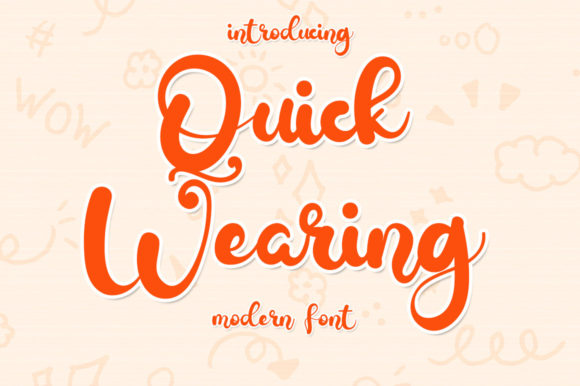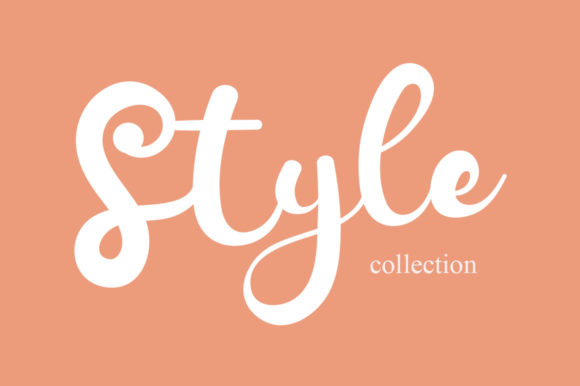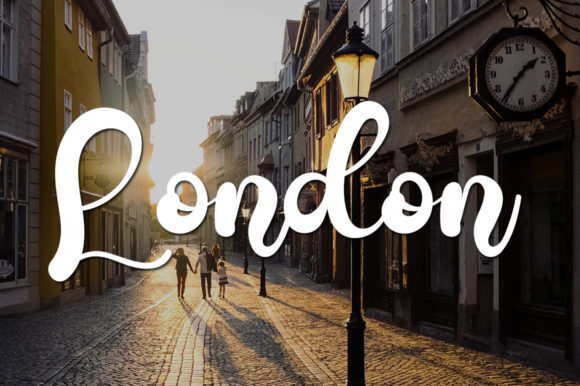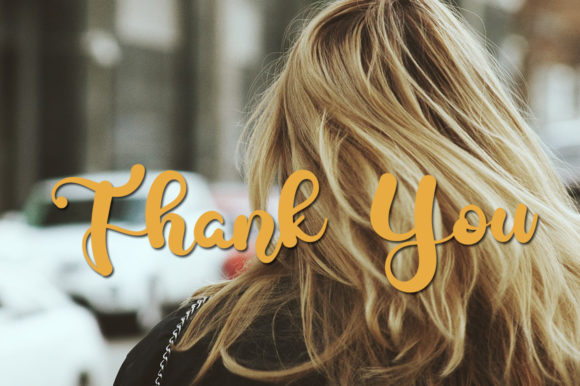
Quick Wearing Font
About Quick Wearing Font
Quick Wearing is a beautiful and sweet handwritten font. It is fresh, clean, and elegant. This font will look amazing in a great number of projects, both formal and informal. It will add an incredibly joyful touch to your designs. By using this font, your business will look more beautiful!